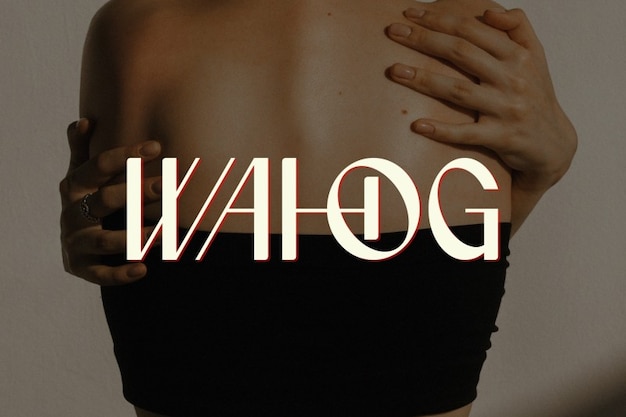
Wahog
Wahog Font
Wahog is a font that masterfully blends decorative elements with a touch of modern elegance. Its characters are thoughtfully designed, exuding sophistication and a contemporary charm that adds a dash of refined beauty to your text. Whether you're working on branding, editorial layouts, or any design project that demands a hint of artistic flair, Wahog gracefully infuses your text with a sense of modern grace. This font captures the essence of modern design, enhanced by decorative elements, making it an ideal choice for those who appreciate the power of elegant and timeless typography.
Wahog Regular (400)